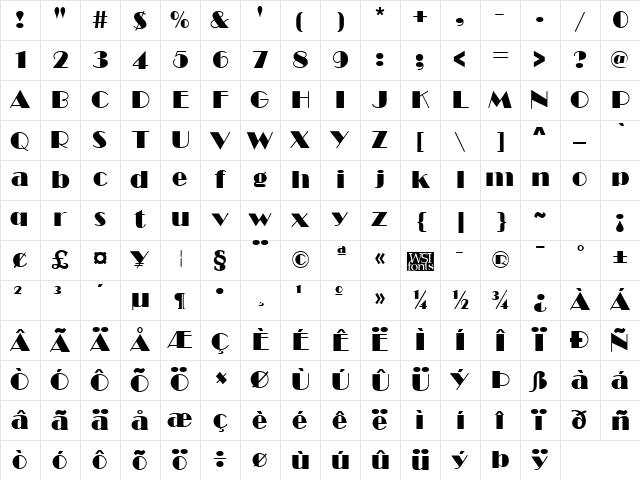
Marquee Regular Free Font
Marquee Regular
Marquee Family
Marquee Regular
Complete Marquee Regular glyph index. Displaying only characters natively supported by Marquee Regular font.
Design Context for Marquee
Marquee is a composed and adaptable typeface that performs quietly and consistently across a wide range of design contexts.
Pro Tip: Use Marquee in both headline and body roles to test its range before committing to a single application.